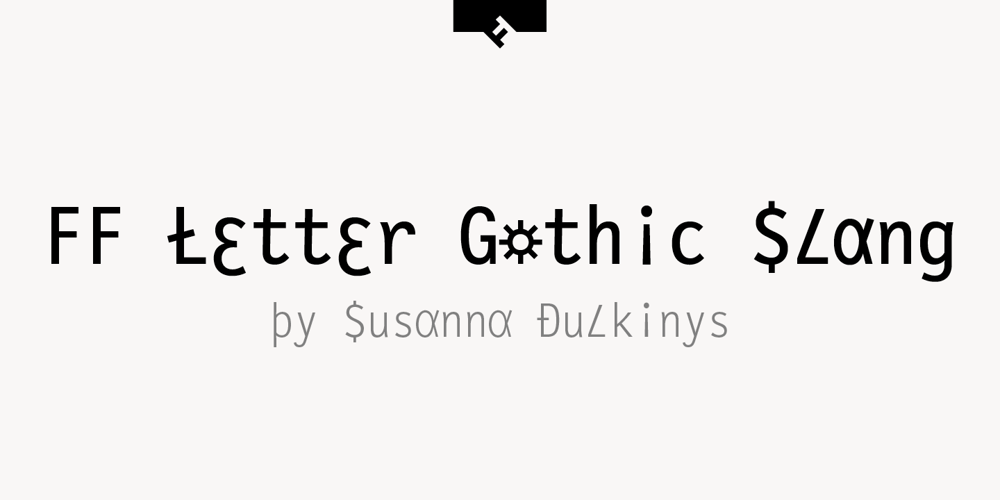
FF Letter Gothic Slang Font Family was designed by Susanna Dulkinys and published by FontFont. FF Letter Gothic Slang contains 6 styles and family package options. American type designer Susanna Dulkinys created this display and sans FontFont in 1999. The family has 6 weights, ranging from Light to Bold and is ideally suited for festive occasions and music and nightlife. FF Letter Gothic Slang provides advanced typographical support with features such as ligatures, alternate characters, case-sensitive forms, and stylistic alternates. It comes with a complete range of figure set options – oldstyle and lining figures, each in tabular and proportional widths. This FontFont is a member of the FF Letter Gothic super family, which also includes FF Letter Gothic Mono and FF Letter Gothic Text.